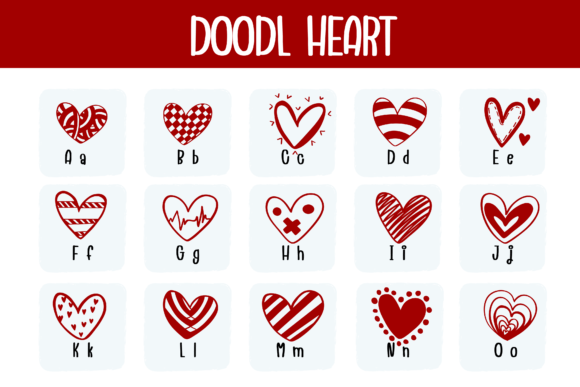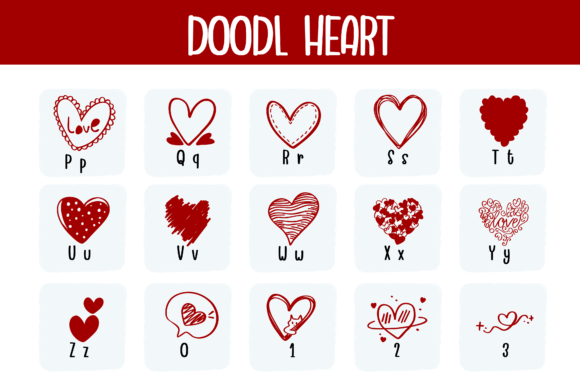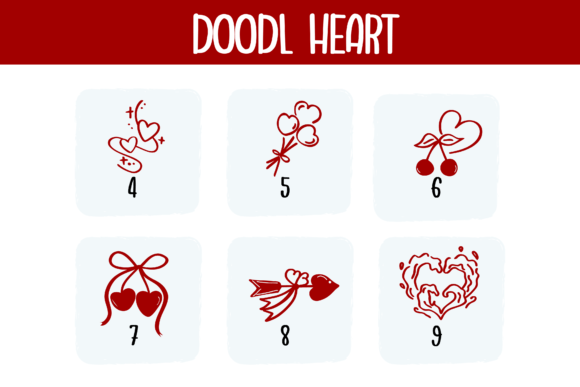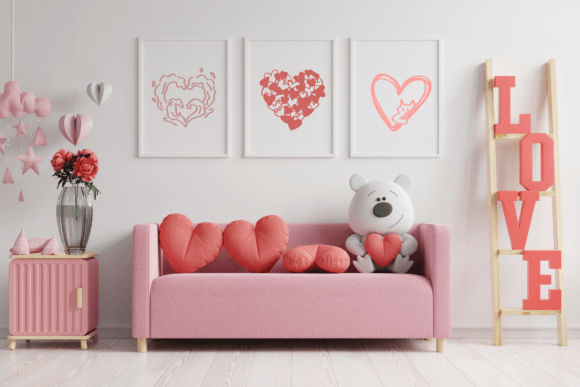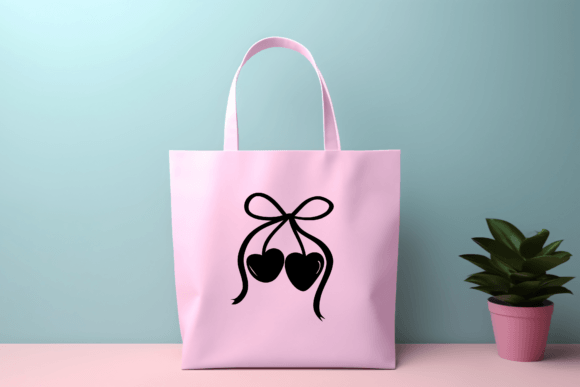
Doodle Heart Font: Add a Touch of Whimsy to Your Creative Projects
Are you looking for a unique and playful font to elevate your creative projects? Look no further than the Doodle Heart Font, a charming dingbats font with a sketch style that’s perfect for adding a touch of whimsy to your designs. In this article, we’ll explore the features and benefits of the Doodle Heart Font, and show you how it can enhance your wedding invitations, DIY projects, crafts, decorations, logos, and many other creative ideas.
What is Doodle Heart Font?
Doodle Heart Font is a dingbats font that features a delightful sketch style, complete with hand-drawn doodles and heart-themed illustrations. This font is perfect for designers and crafters who want to add a personal touch to their projects. With its unique and playful design, Doodle Heart Font is sure to capture the attention of your audience and leave a lasting impression.
Features of Doodle Heart Font
So, what makes Doodle Heart Font so special? Here are just a few of its key features:
- Sketch style: Doodle Heart Font features a charming sketch style that’s perfect for adding a touch of whimsy to your designs.
- Hand-drawn illustrations: Each character in the font is carefully hand-drawn, giving it a unique and personal feel.
- Heart-themed: As the name suggests, Doodle Heart Font features heart-themed illustrations throughout, making it perfect for projects that require a romantic touch.
- Dingbats font: Doodle Heart Font is a dingbats font, which means it’s made up of illustrations and symbols rather than traditional letters and numbers.
Uses for Doodle Heart Font
So, how can you use Doodle Heart Font in your creative projects? The possibilities are endless! Here are a few ideas to get you started:
- Wedding invitations: Add a touch of romance to your wedding invitations with Doodle Heart Font. You can use it to create custom illustrations, borders, and even the invitation text itself.
- DIY projects: Doodle Heart Font is perfect for DIY projects like scrapbooking, card making, and other paper crafts.
- Crafts: Use Doodle Heart Font to create custom decorations, garlands, and other craft projects that require a personal touch.
- Logos: Doodle Heart Font can even be used to create custom logos for your business or brand. Its unique and playful design makes it perfect for businesses that want to stand out from the crowd.
Tips for Using Doodle Heart Font
Here are a few tips for getting the most out of Doodle Heart Font:
- Experiment with different colors: Doodle Heart Font looks great in a variety of colors, so don’t be afraid to experiment and find the perfect hue for your project.
- Mix and match: Try combining Doodle Heart Font with other fonts and illustrations to create a unique and eye-catching design.
- Use it sparingly: While Doodle Heart Font is certainly attention-grabbing, it can be overwhelming if used too much. Try using it sparingly to add a touch of whimsy to your design.
In conclusion, Doodle Heart Font is a unique and playful dingbats font that’s perfect for adding a touch of whimsy to your creative projects. With its sketch style, hand-drawn illustrations, and heart-themed design, it’s sure to capture the attention of your audience and leave a lasting impression. Whether you’re a designer, crafter, or DIY enthusiast, Doodle Heart Font is a must-have font that will take your projects to the next level.